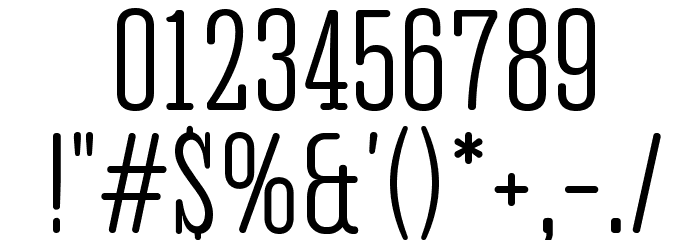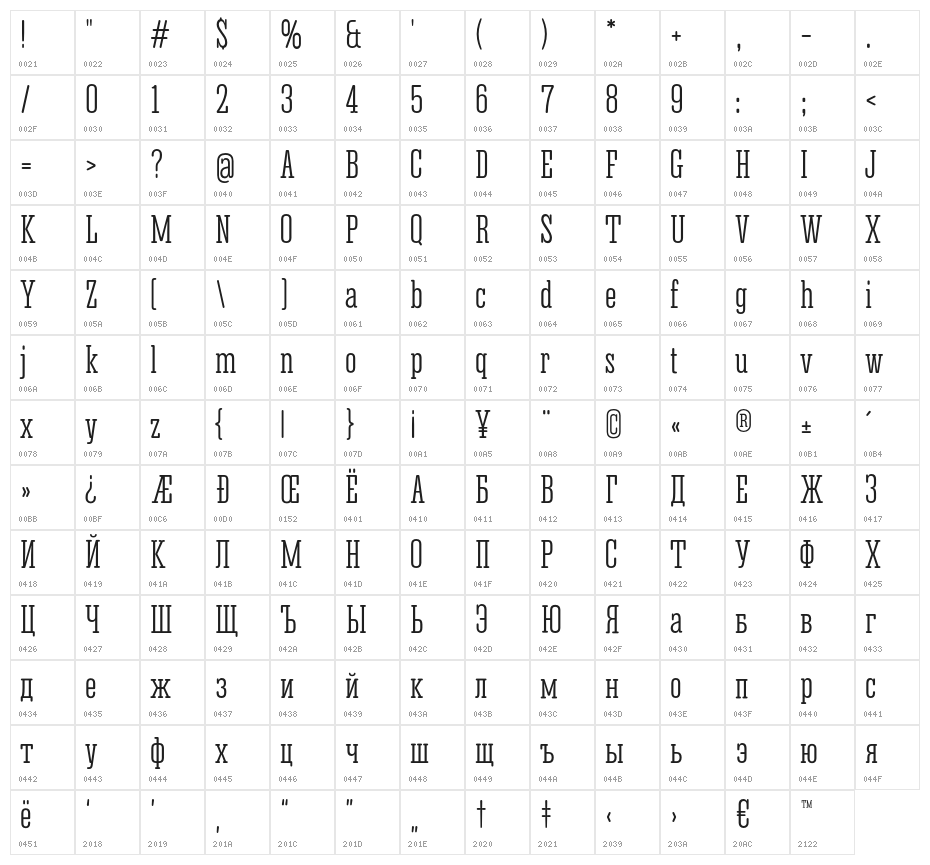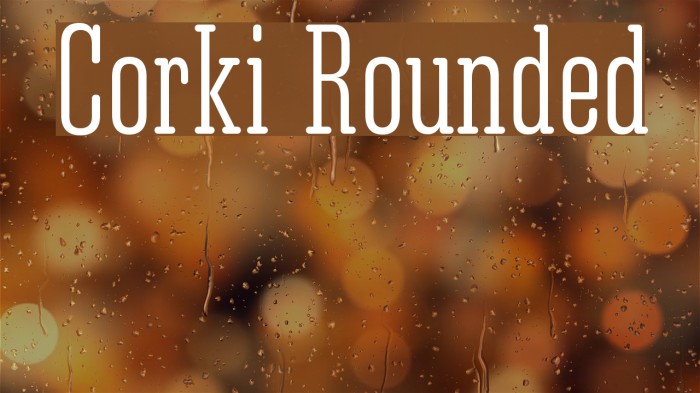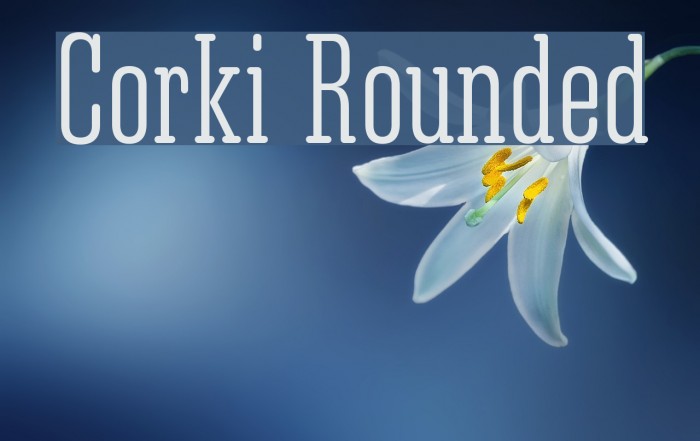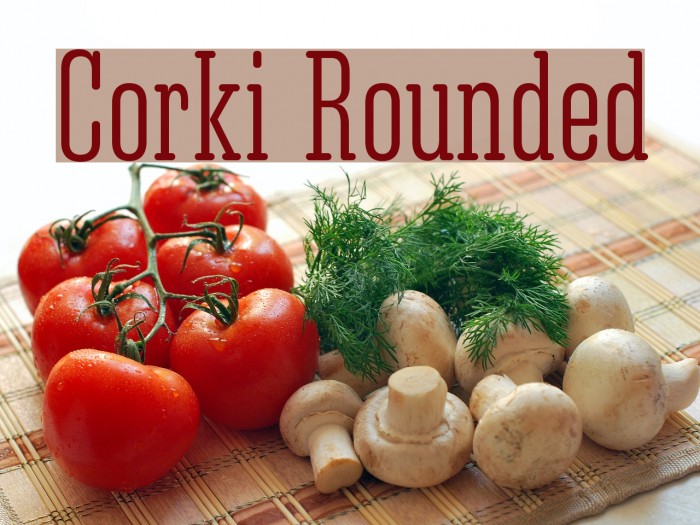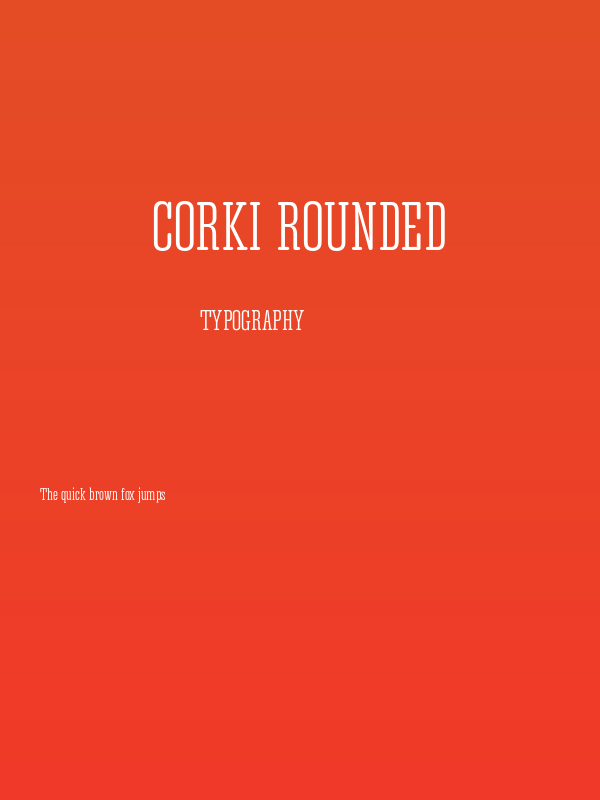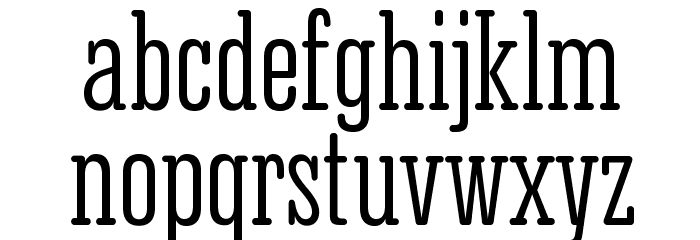
Corki Rounded Font
Corki Rounded Description
This font features a distinctive rounded serif style that combines traditional serif elements with a modern twist. The characters are tall and narrow, with a consistent stroke width that gives it a clean and structured appearance. The rounded edges soften the overall look, making it approachable and friendly. The uppercase letters are bold and commanding, while the lowercase letters maintain a balanced and harmonious flow. The numerals are clear and legible, suitable for various applications. Special characters are well-integrated, maintaining the font's cohesive design.